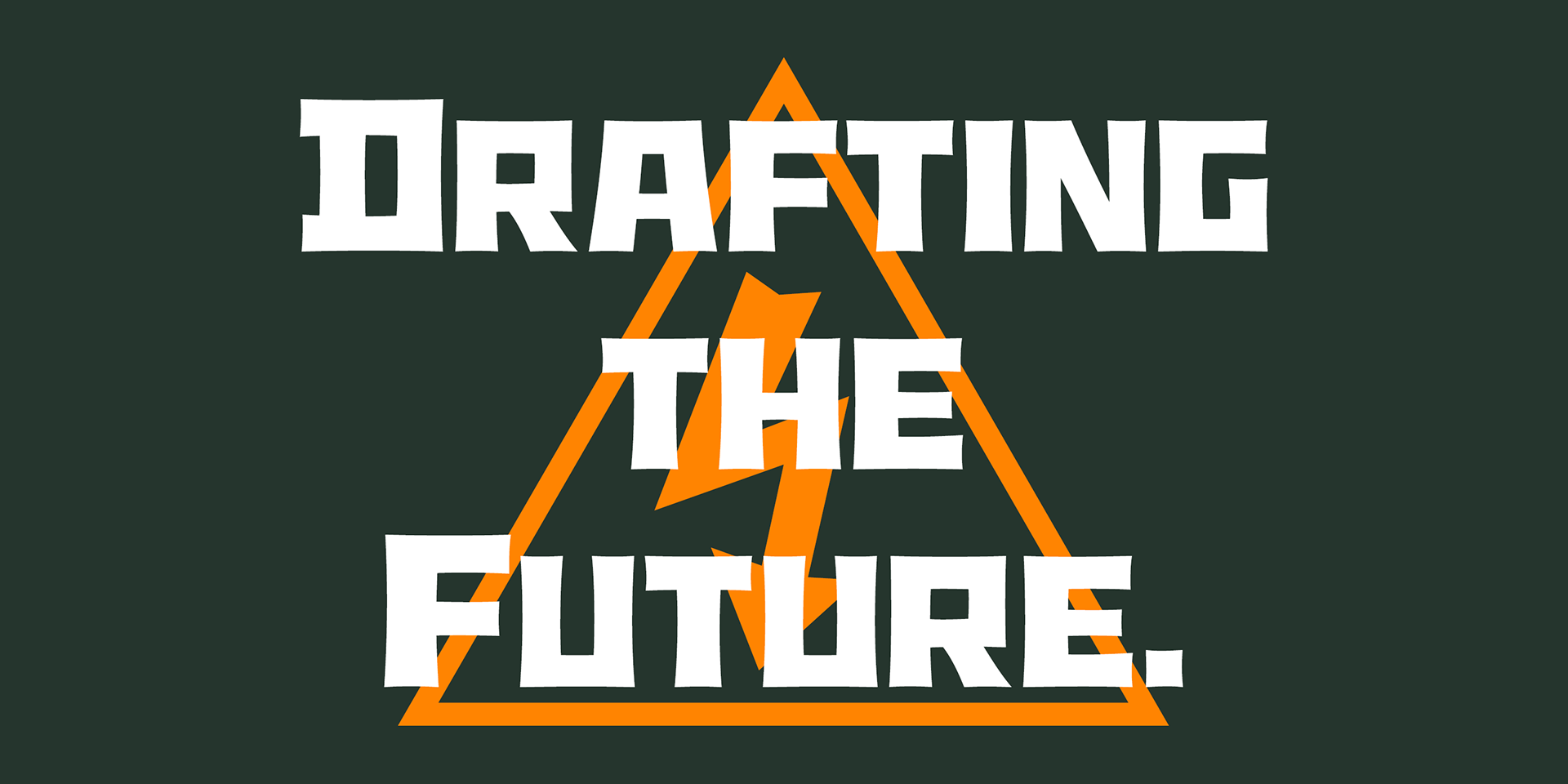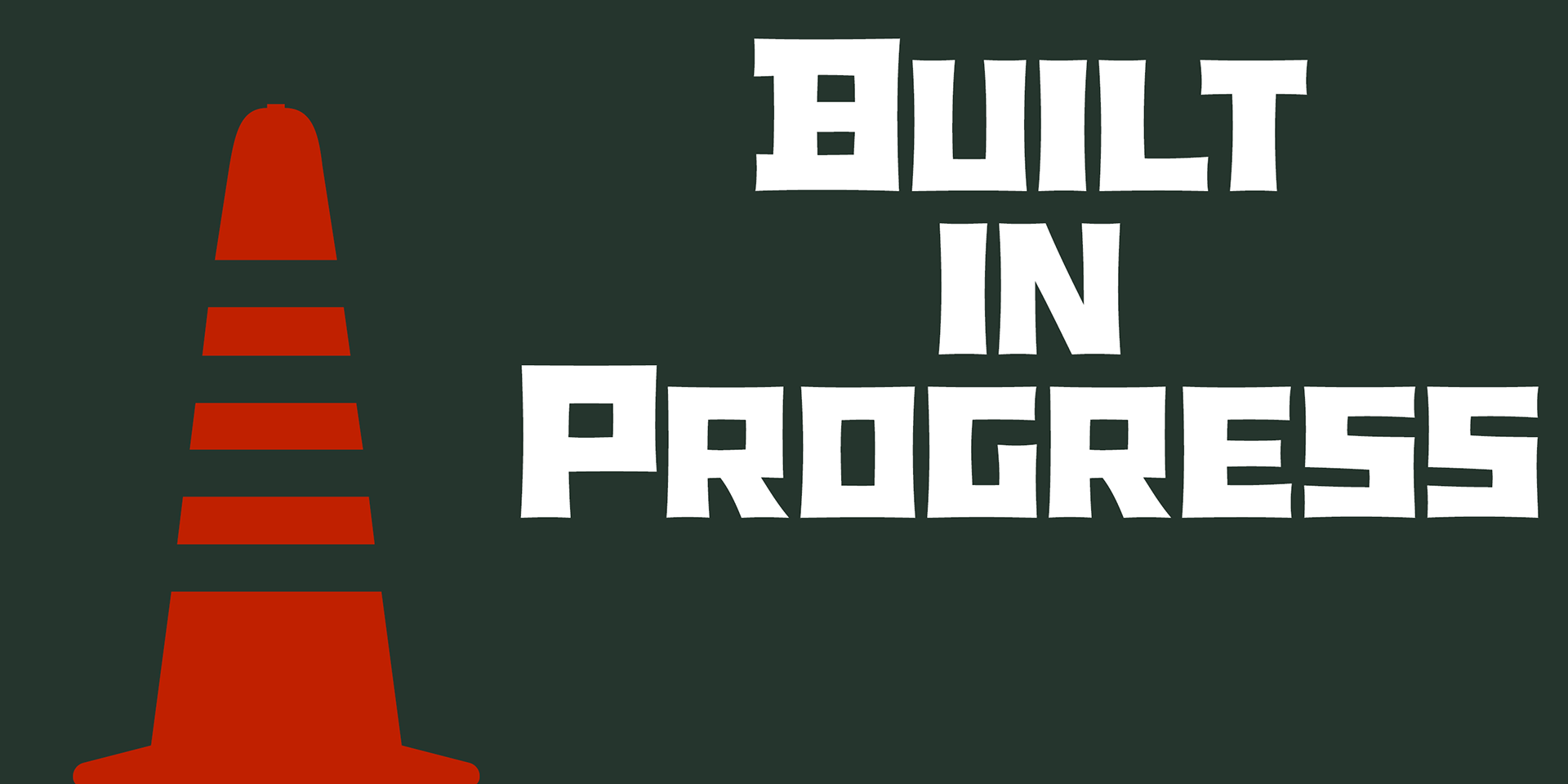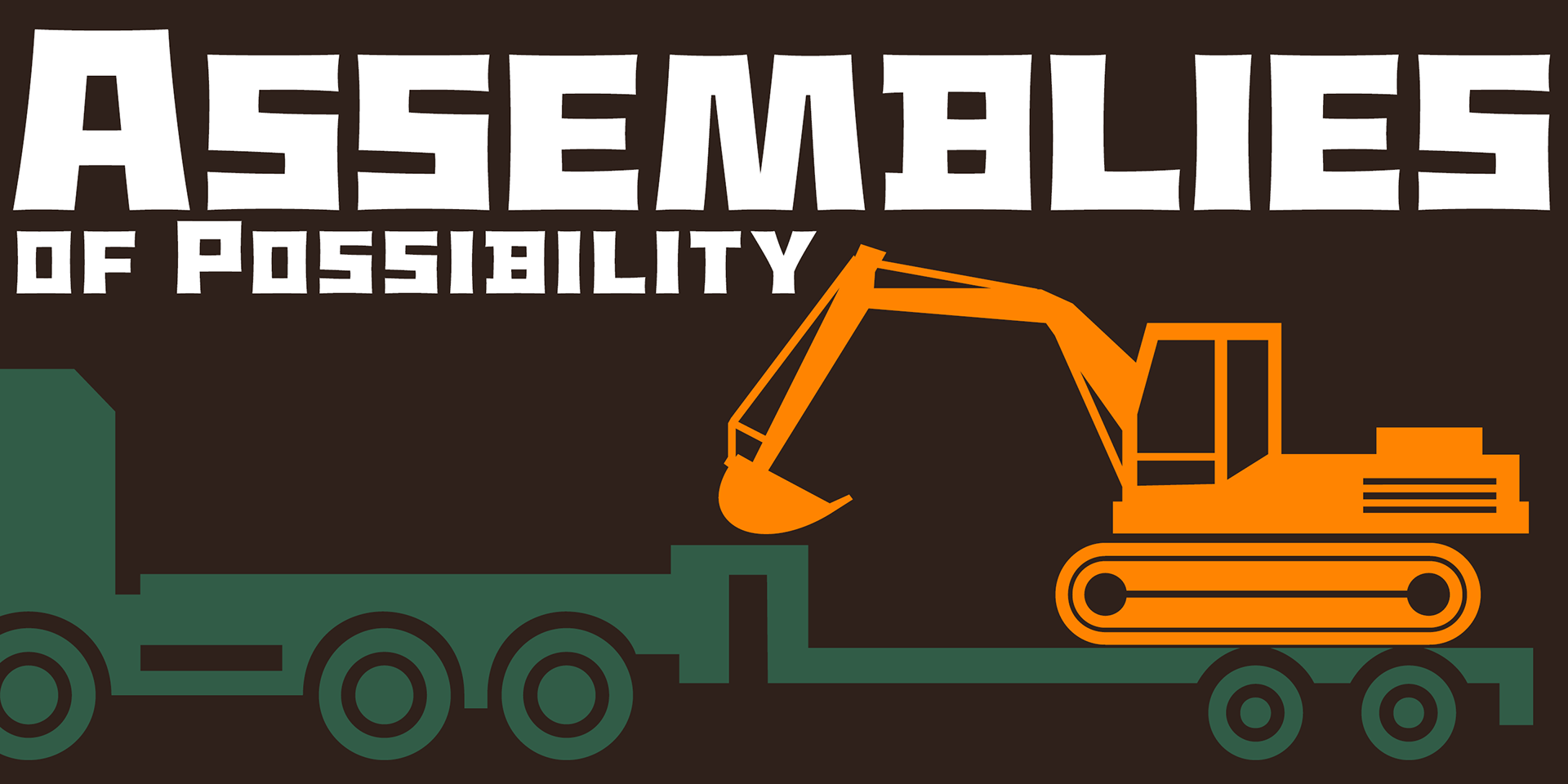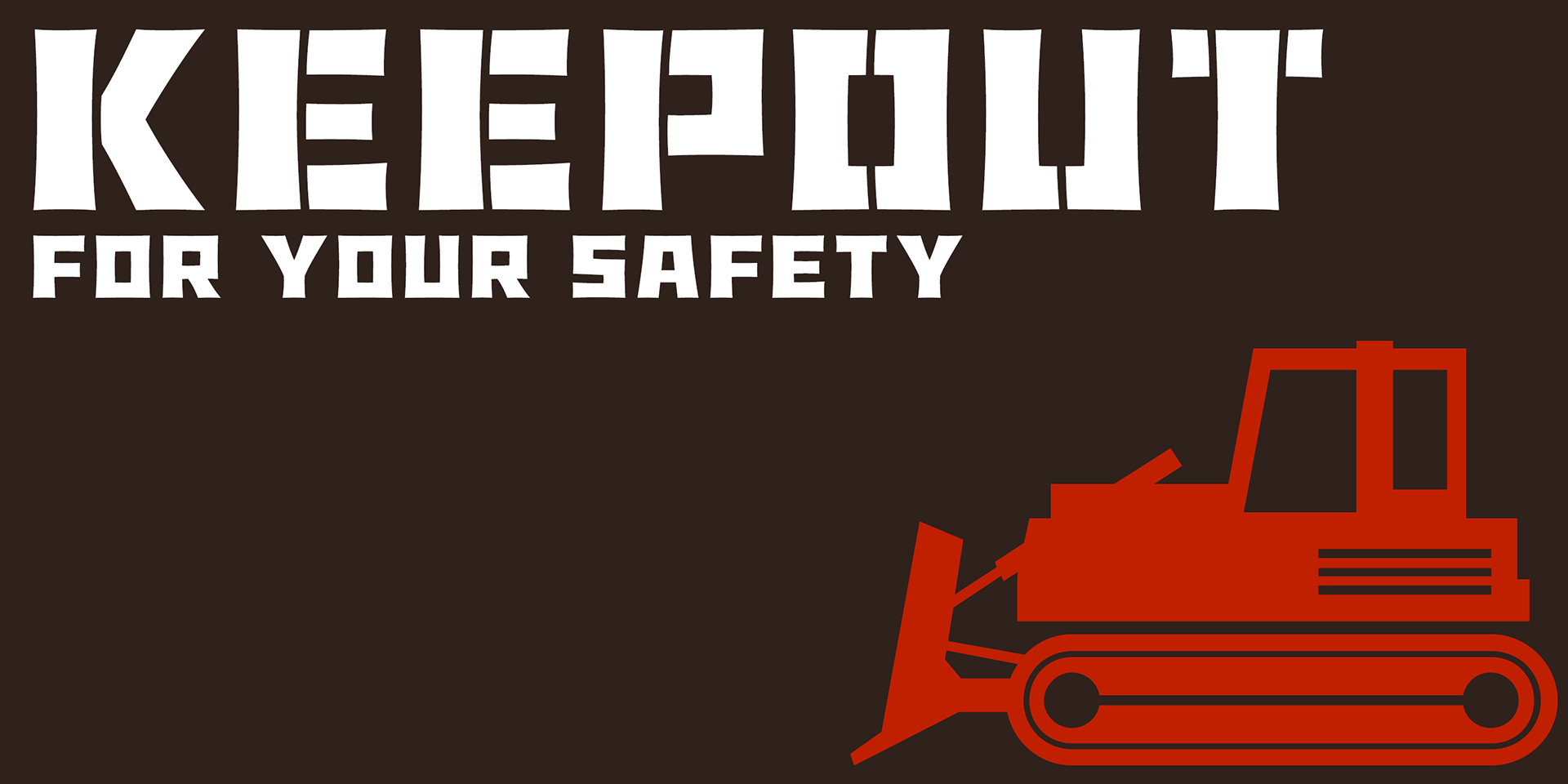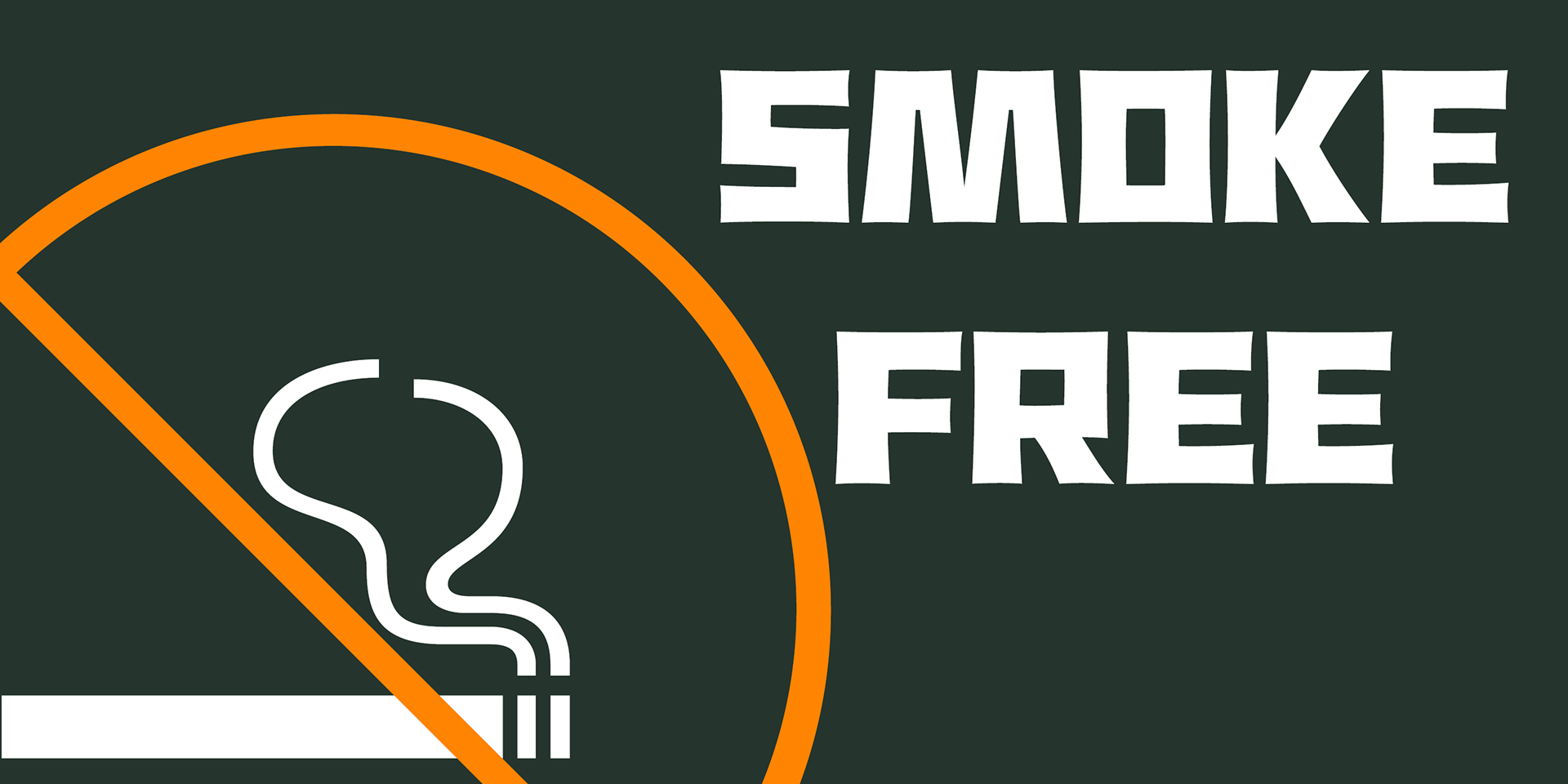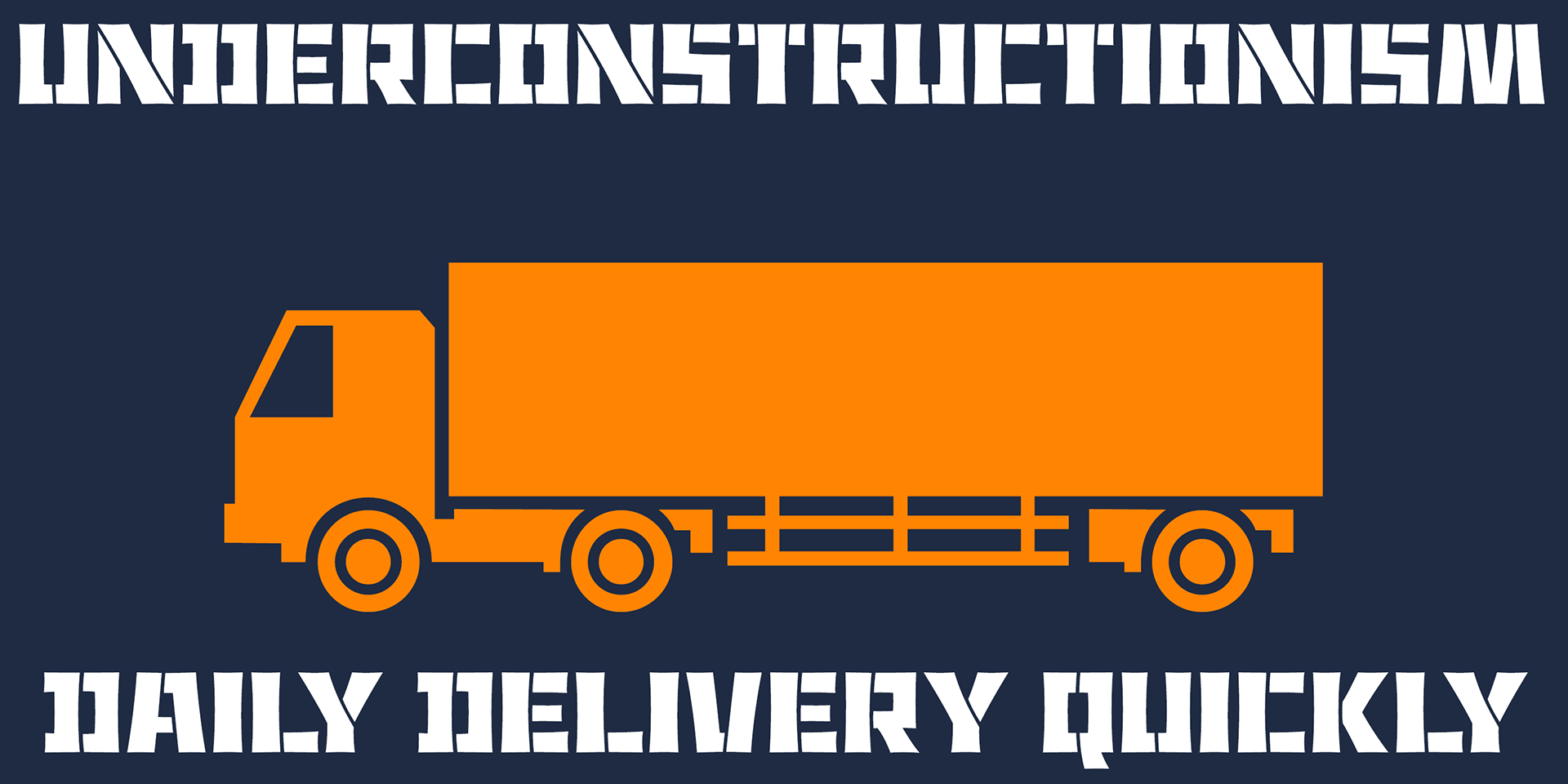
Underconstructionism
This font is inspired by stencil signage commonly found on construction sites.
Its heavy, rugged letterforms are bold and highly eye-catching—perfect for headlines and titles.